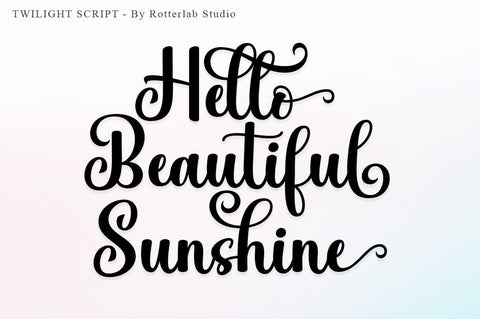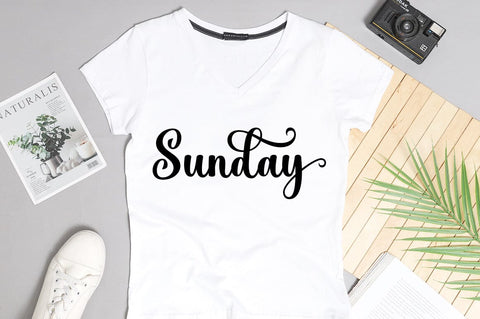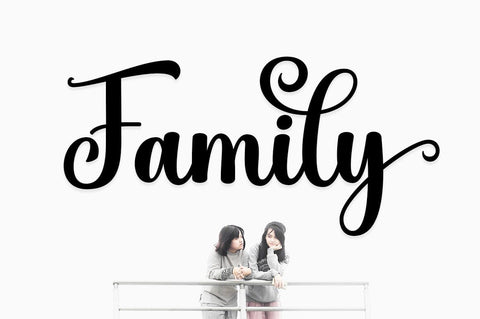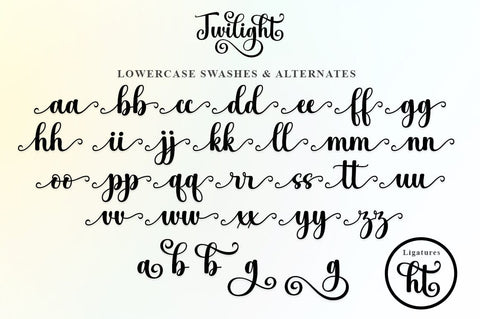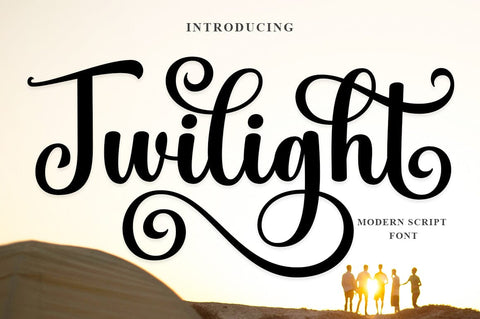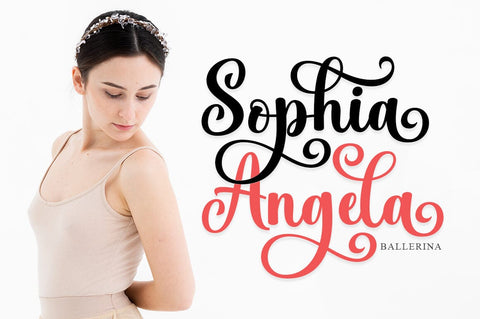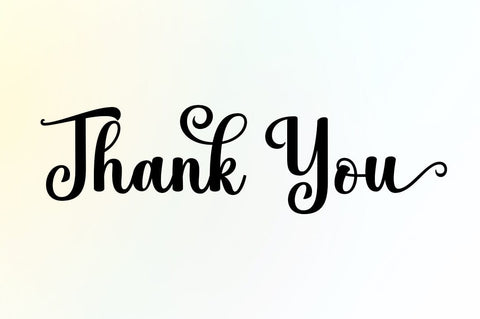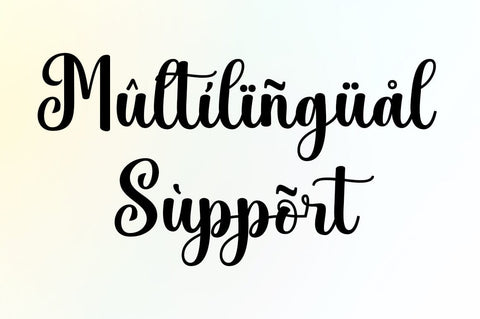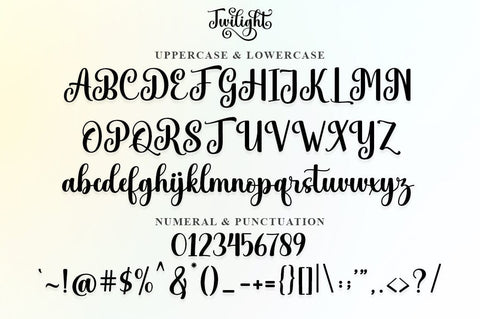
Twilight Script
Twilight is a lovely handwritten font, modern and classy, which exudes elegance with a modern style. Twilight is written with care and love which makes it the perfect choice for a variety of design projects.
Twilight will work perfectly on a variety of your design projects such as branding, logos, wedding invitations, greeting cards, fashion, book covers, posters, labels, quotes and other romantic projects.